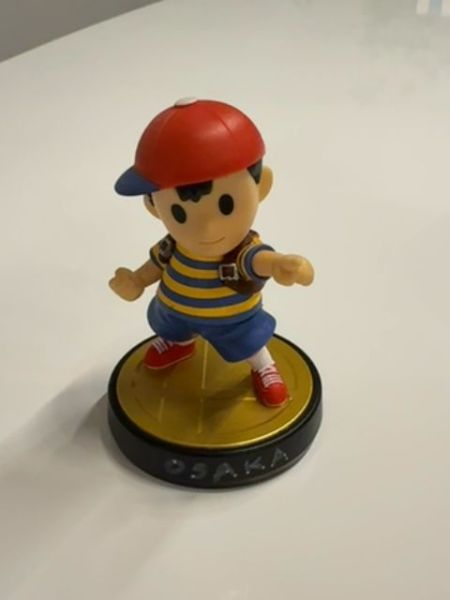
Amiibo Figure
Amiibo figures are interactive toys designed to work with Nintendo video game systems. They allow players to unlock special features, items, or characters in compatible games.
The typography on the base is minimalistic, featuring a bold sans-serif font that is easy to read and modern. The lettering is all uppercase, providing a clean and straightforward look that complements the youthful and vibrant design of the figure.
The packaging consists of a clear plastic case revealing the figure inside, which is mounted on a circular base. The design emphasizes the character's playful aesthetic, using vibrant colors to attract fans of the series.
- Amiibo figures interact with games using Near Field Communication (NFC) technology.
- First introduced by Nintendo in 2014.
- They are part of the 'toys-to-life' gaming trend, where physical toys are used within video games.